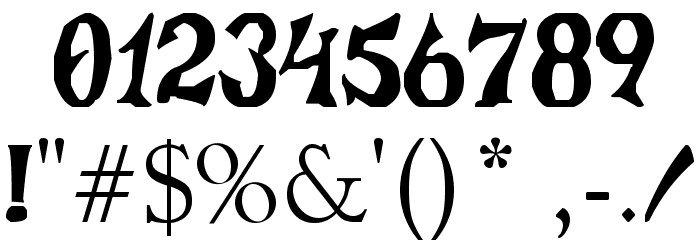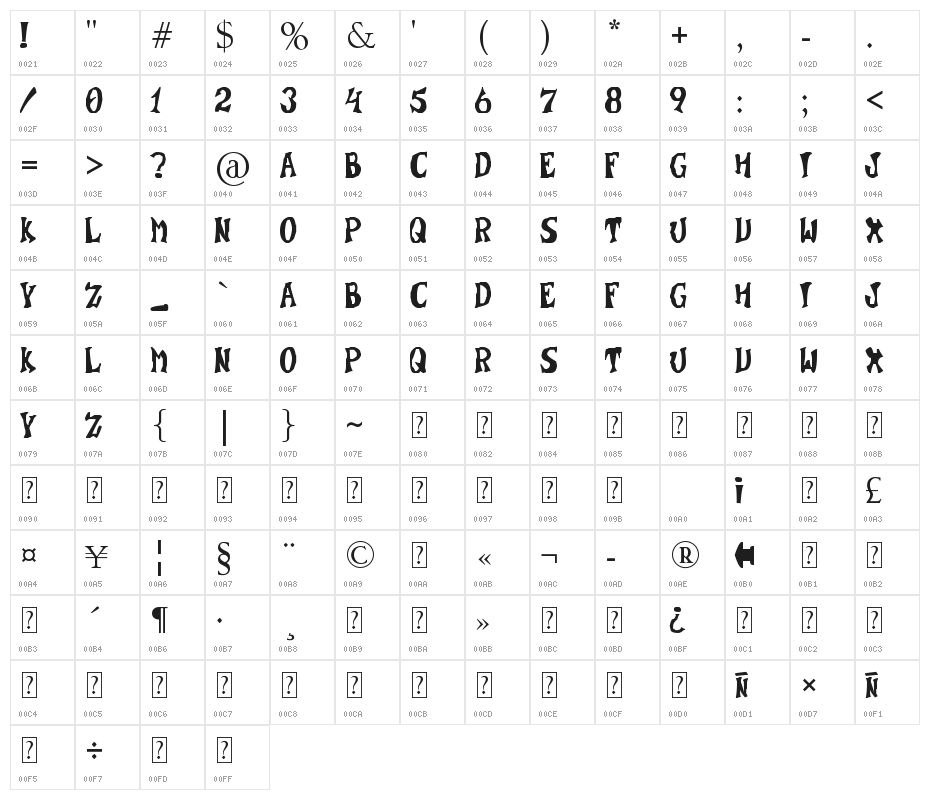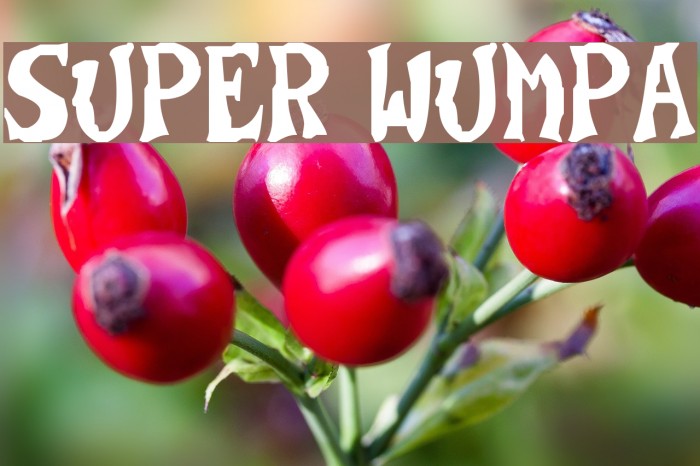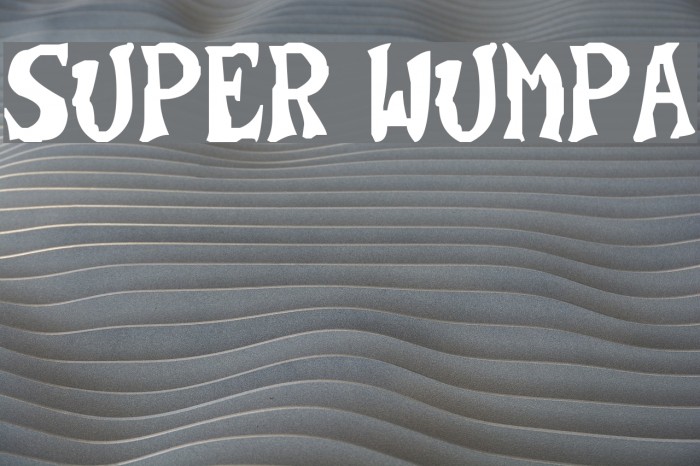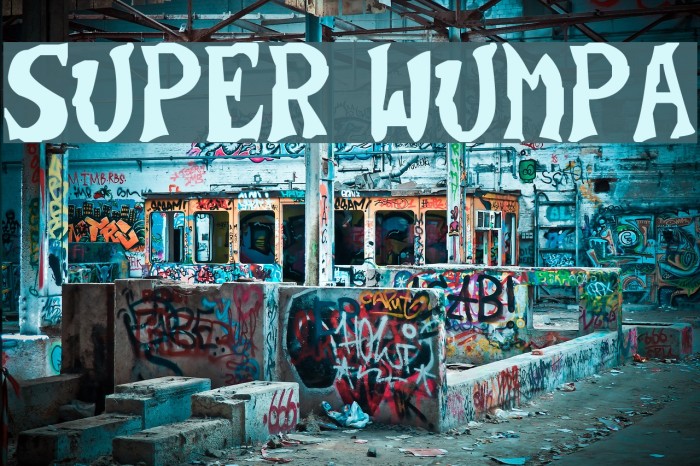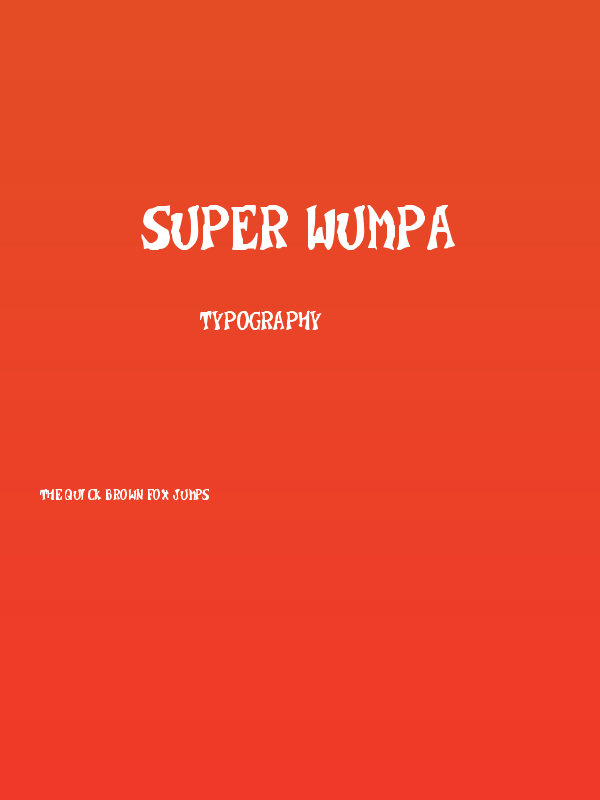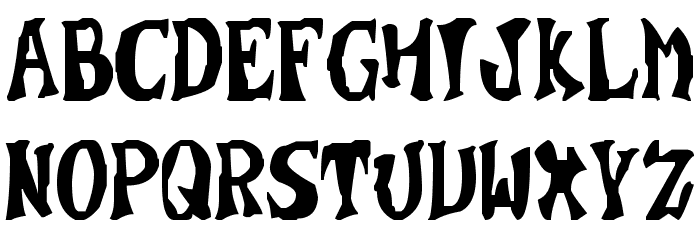
Super Wumpa Font
Super Wumpa Description
This font features a bold and dynamic style with a strong presence. The characters are crafted with sharp, angular edges and a slightly irregular form, giving it a hand-carved appearance. The uppercase and lowercase letters maintain a consistent height, while the numbers and special characters are equally bold and expressive. The font's unique style is reminiscent of vintage or fantasy themes, making it suitable for projects that require a touch of whimsy or adventure. The overall design is eye-catching and memorable, perfect for making a statement.
| Overall Style | Vintage, Decorative |
| Proposed Projects | Ideal for fantasy-themed posters, video game titles, adventure book covers, and branding that requires a bold statement. |